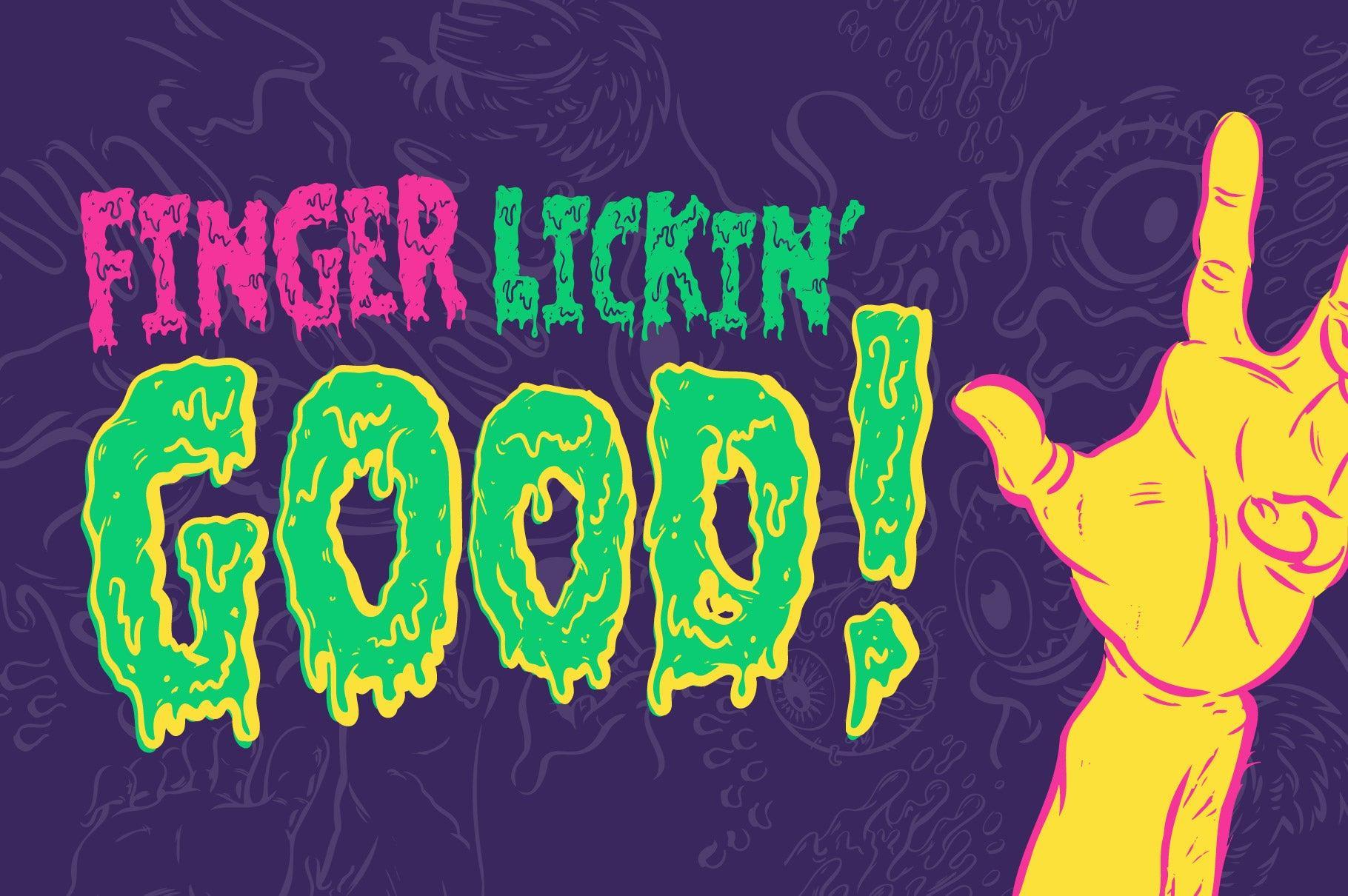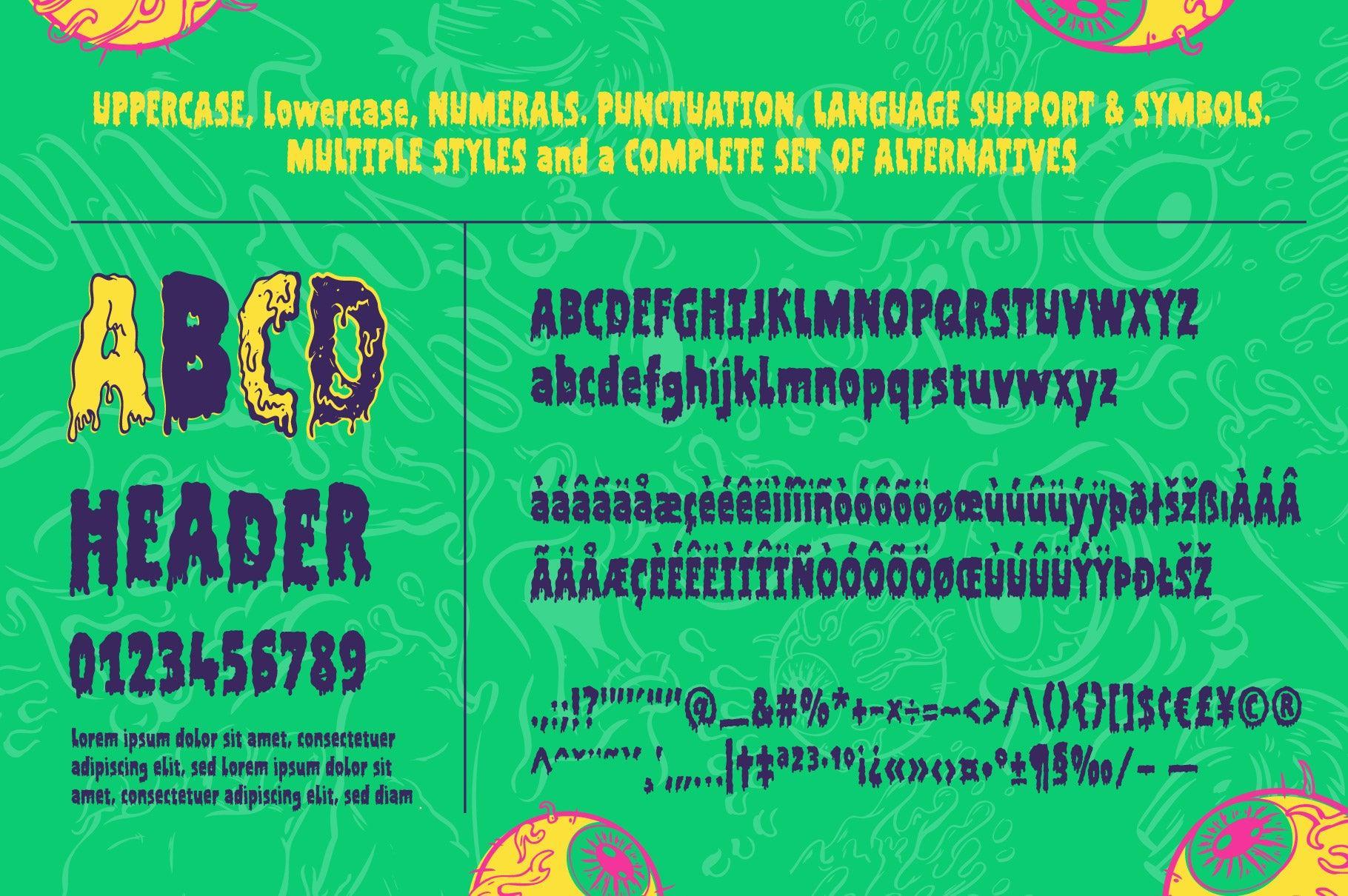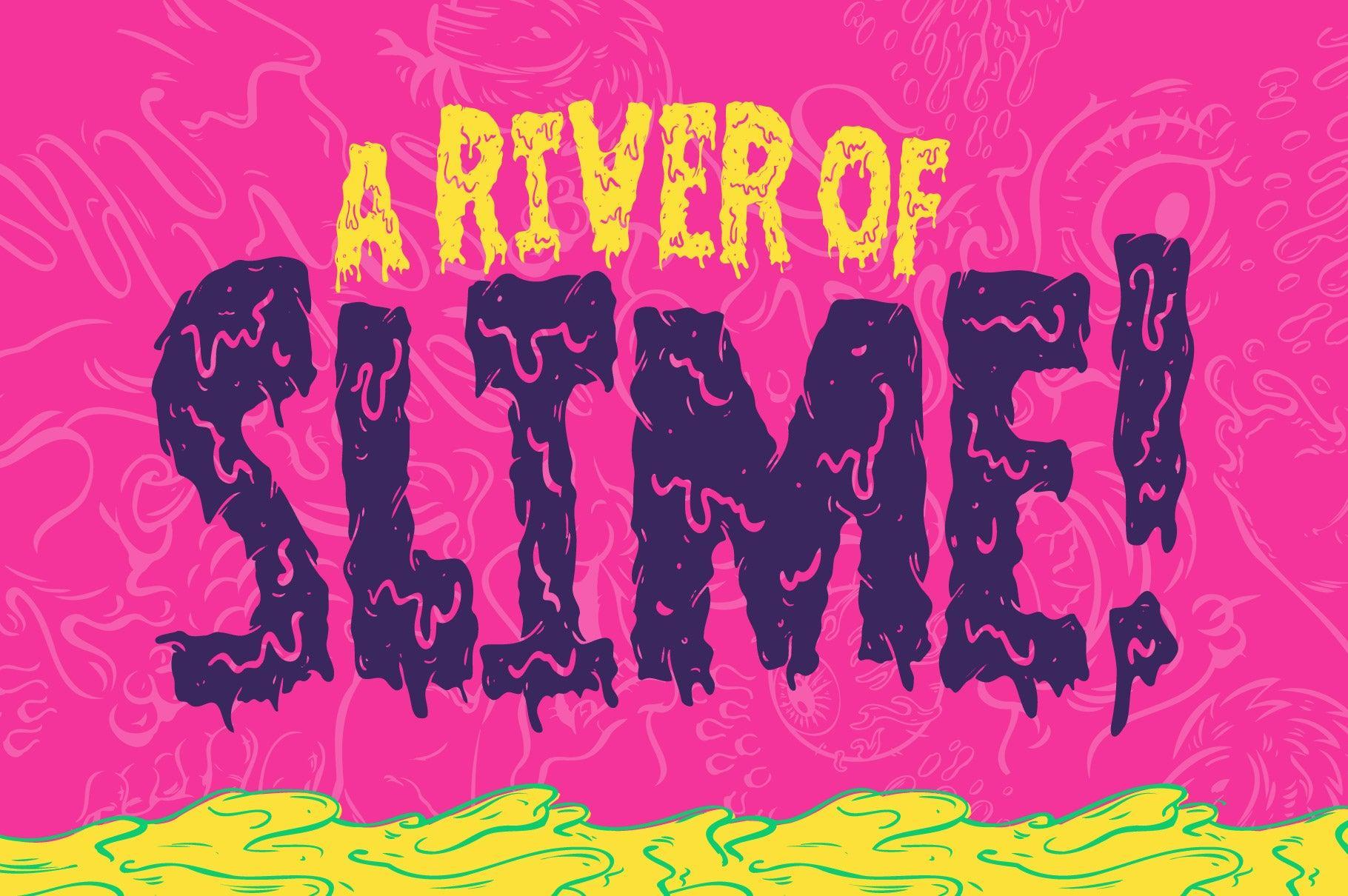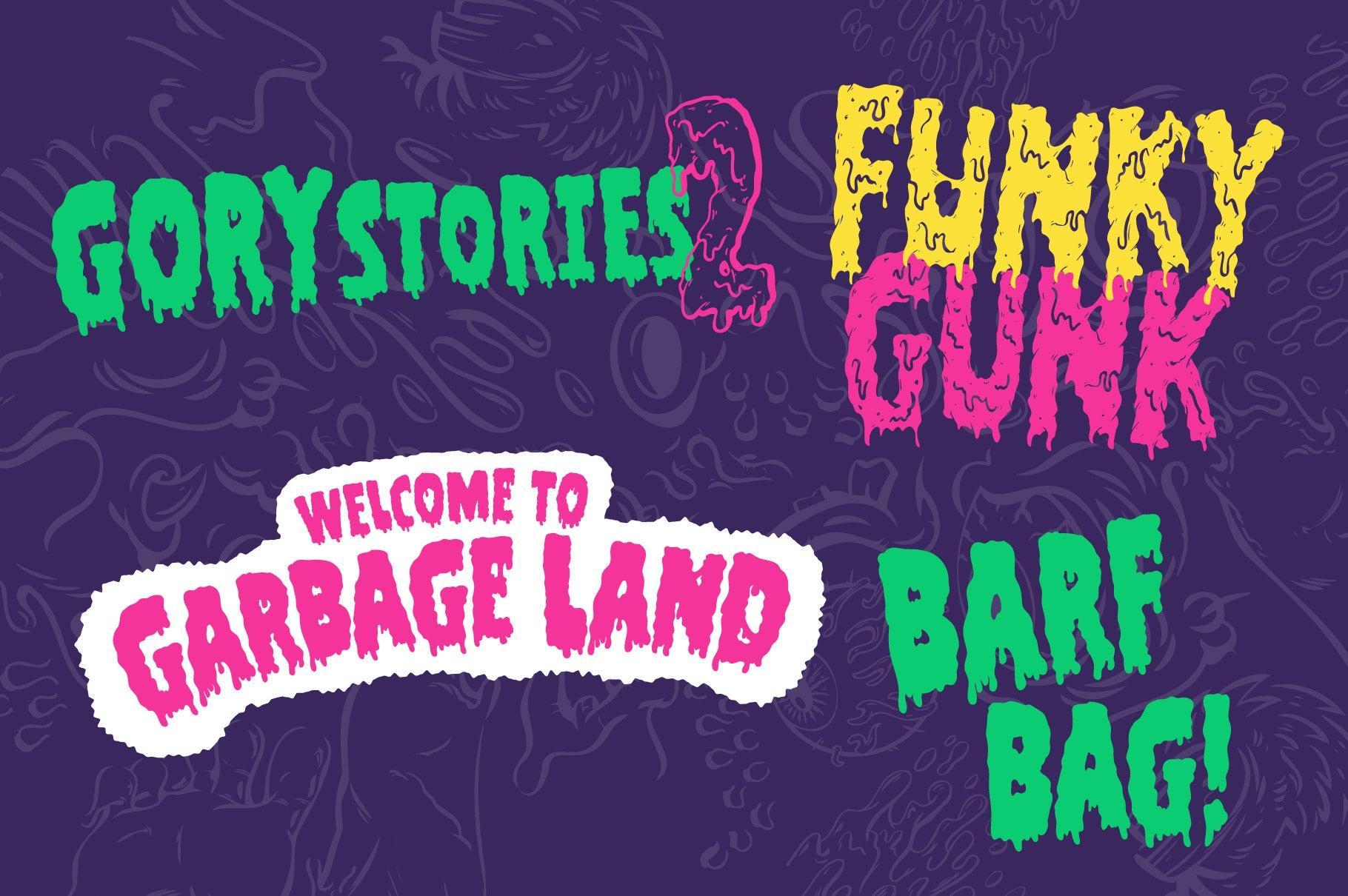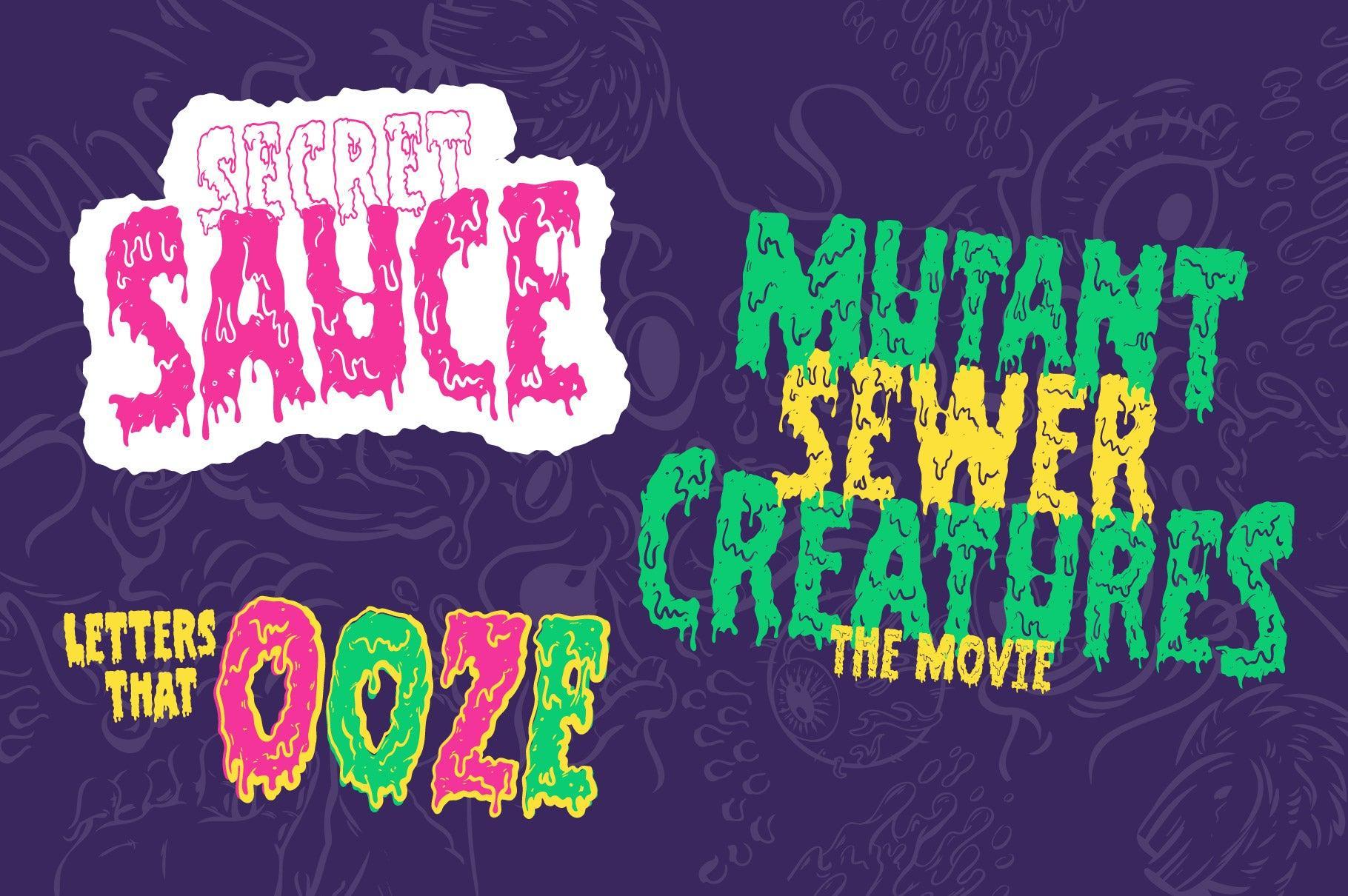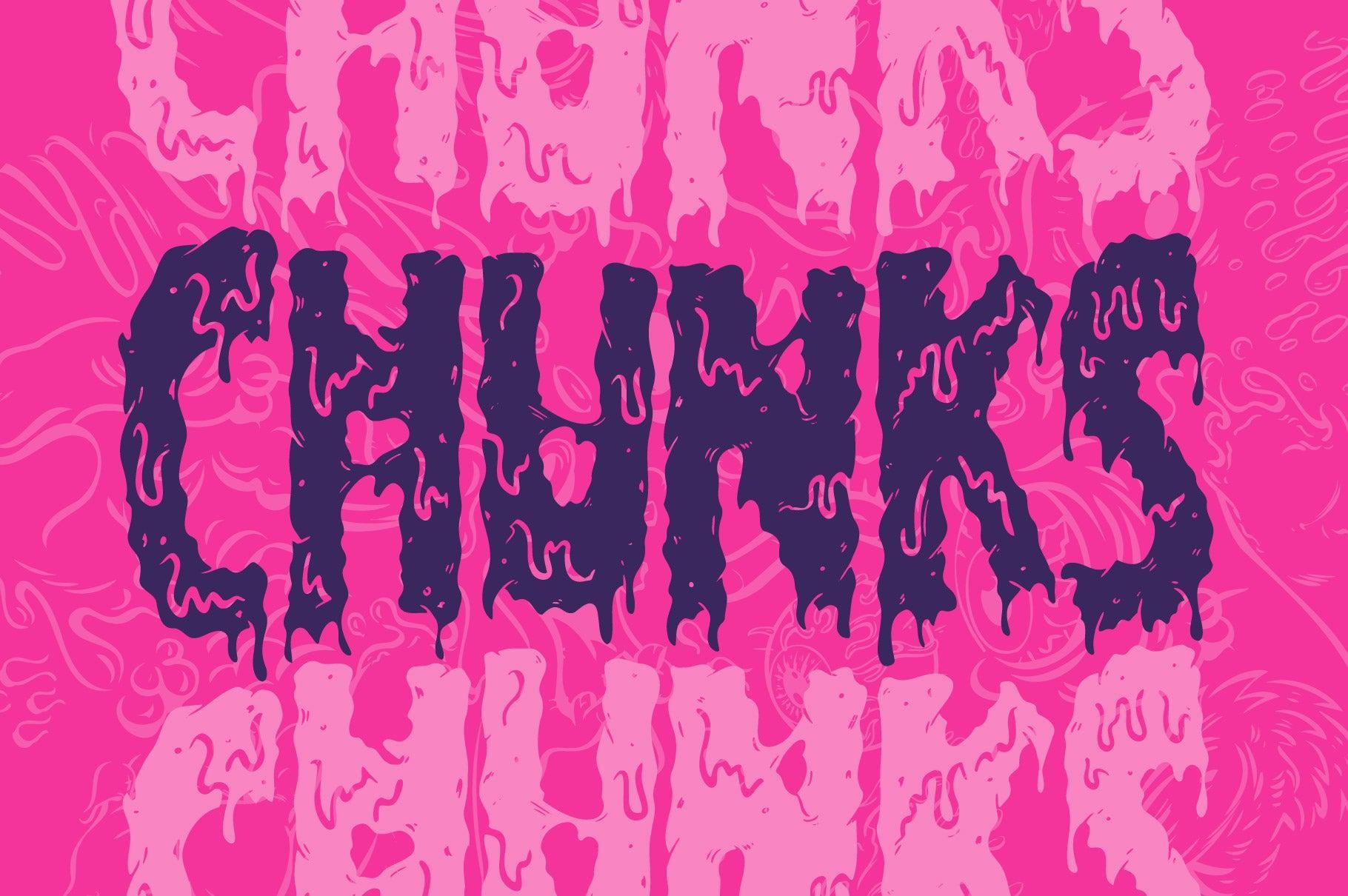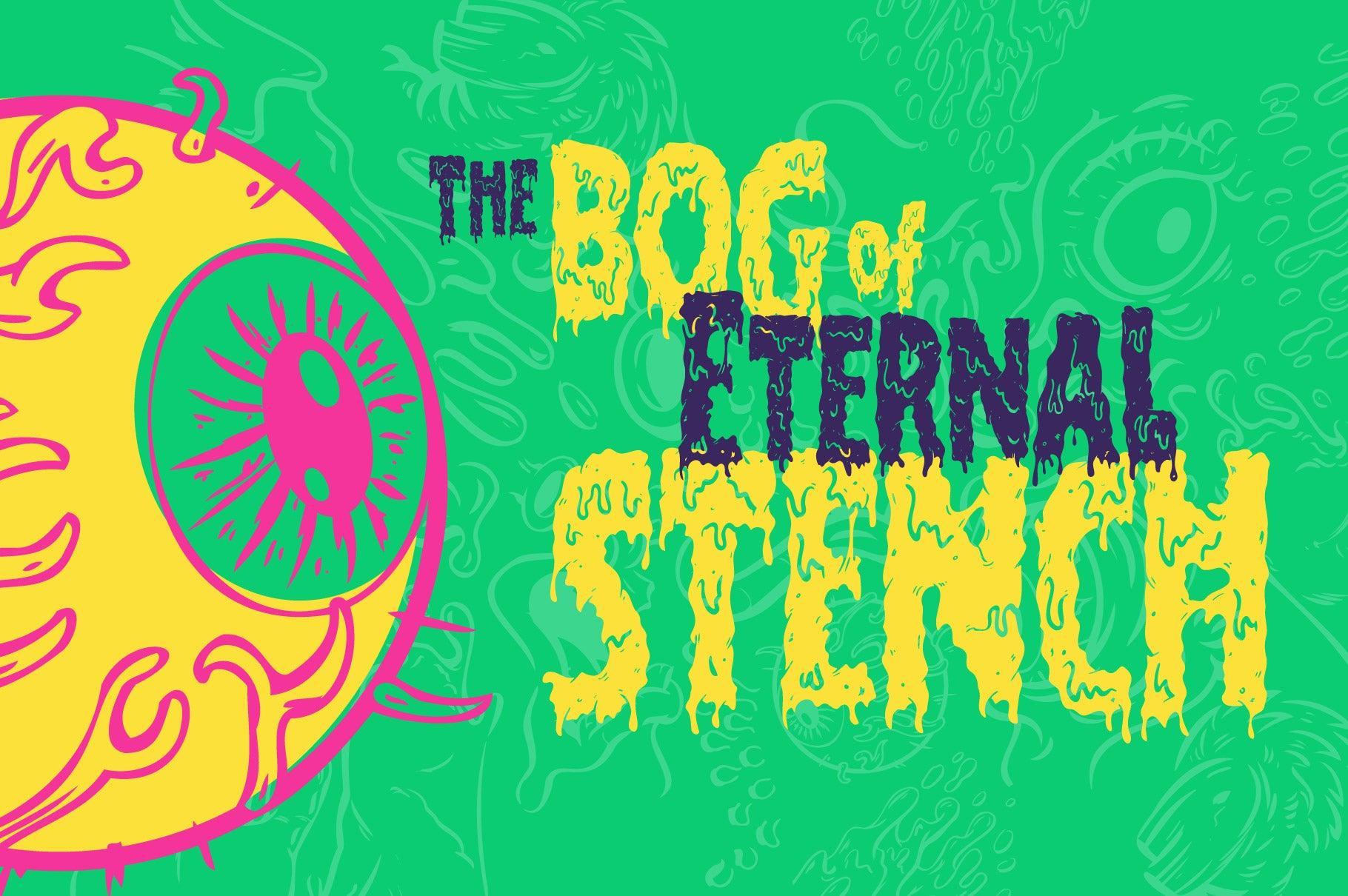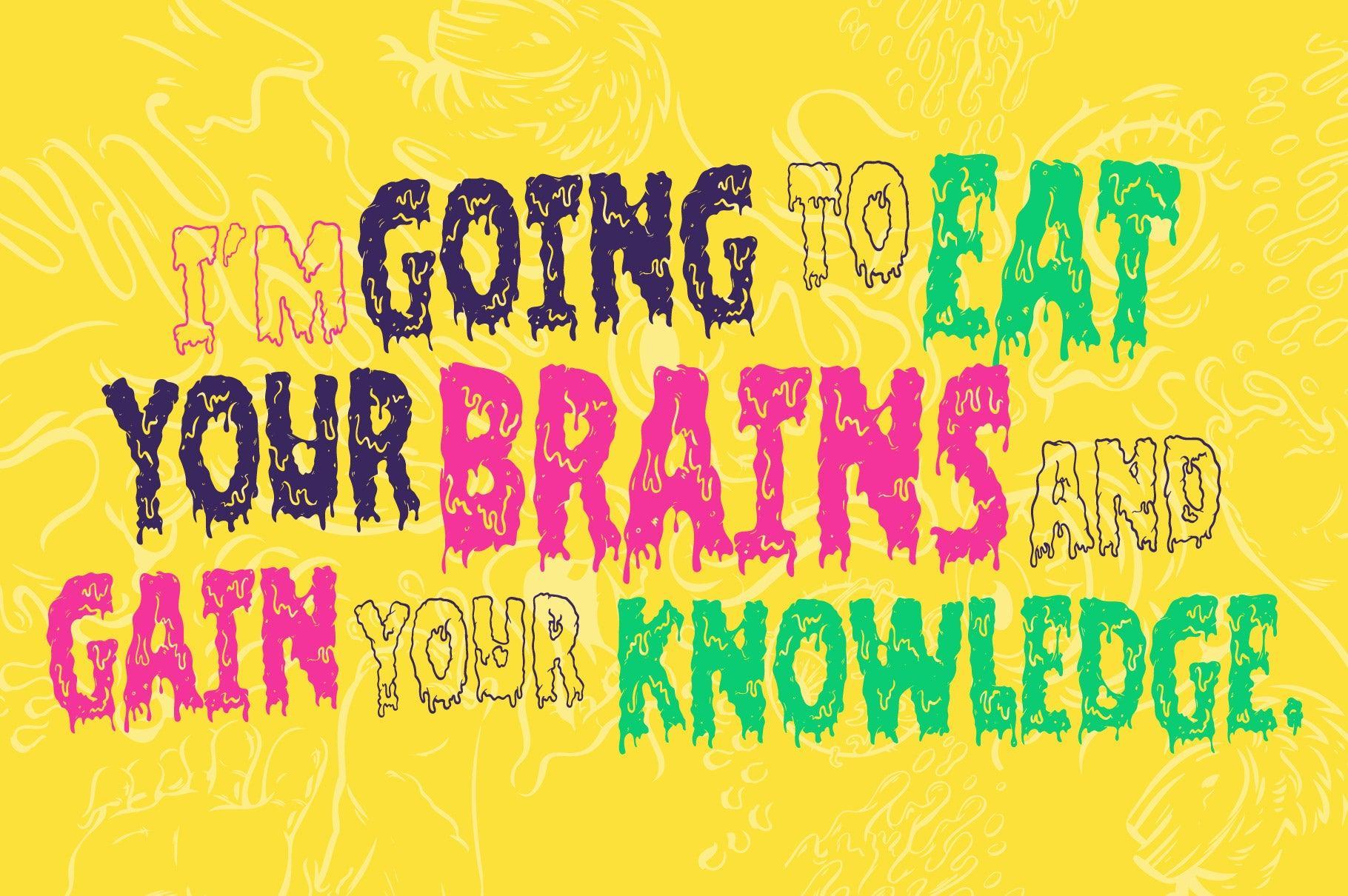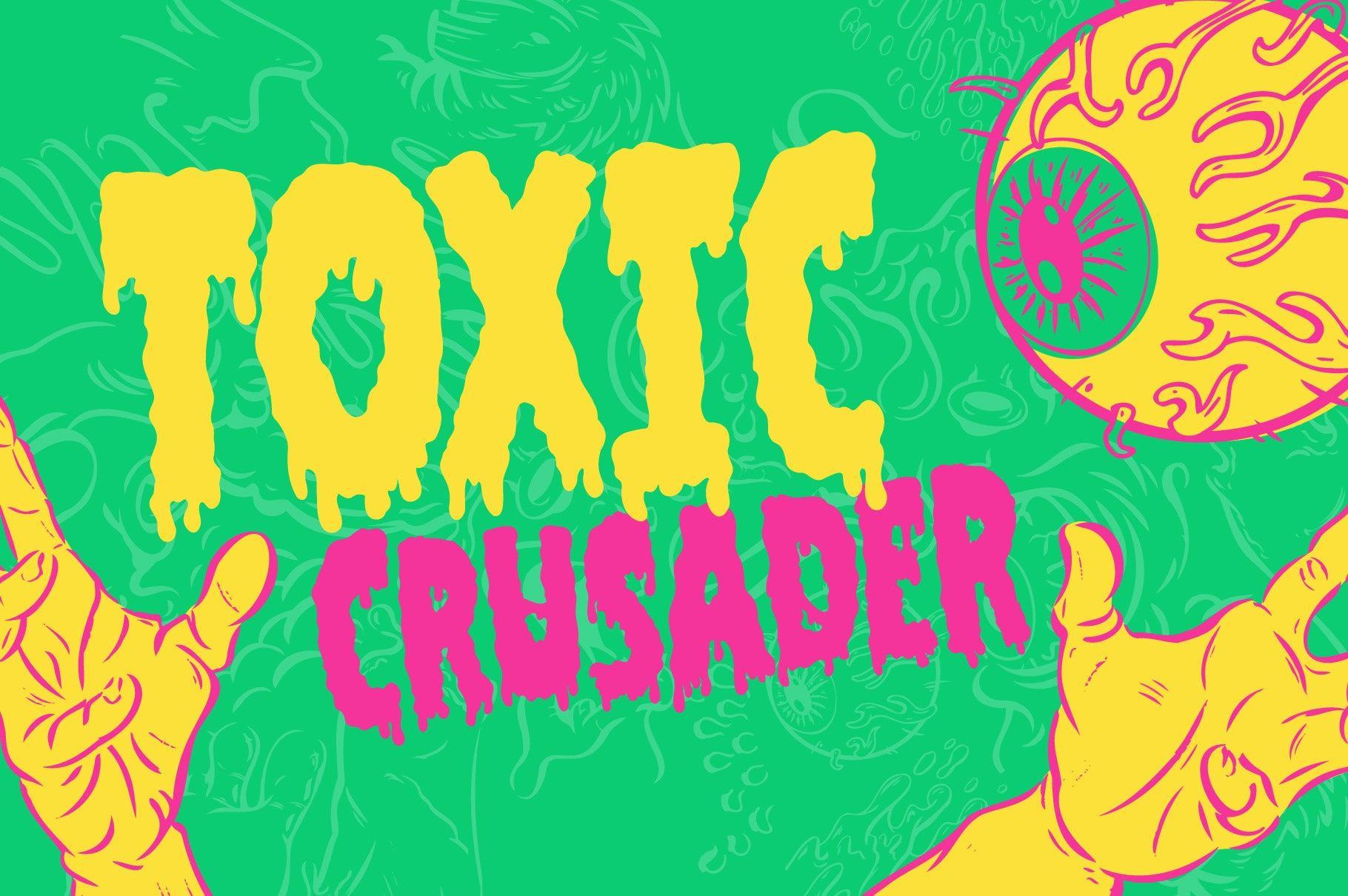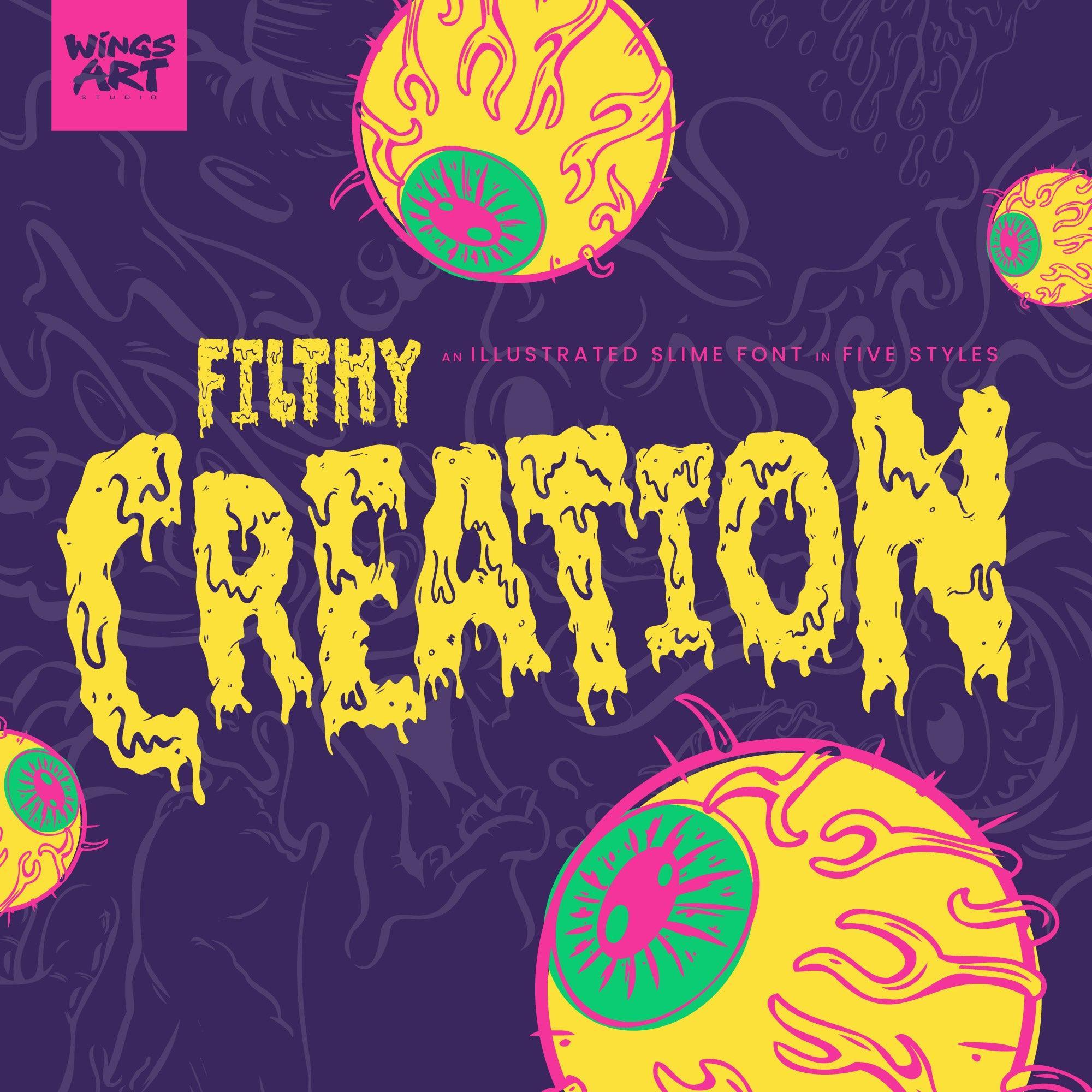
Filthy Creation: An Outrageously Cartoonish Slime Font!
Filthy Creation is a hand-drawn slime font featuring five cartoonish styles inspired by vintage horror comics and 80s pop culture. Each font includes uppercase and lowercase characters, numerals, punctuation, language support, symbols, alternative characters, and a collection of grotesque illustrations.
Ideal for retro-inspired graphic design and horror-themed projects. Perfect for posters, album covers, branding, and merchandise, ensuring a unique and eye-catching aesthetic that captures attention.
Christopher King (aka Wingsart Studio) is a graphic font designer with a background in publishing, TV, and film. His work leans towards a hand-drawn look that's particularly suited to headers and titles, already used by global brands such as Disney, Apple, and Marvel.